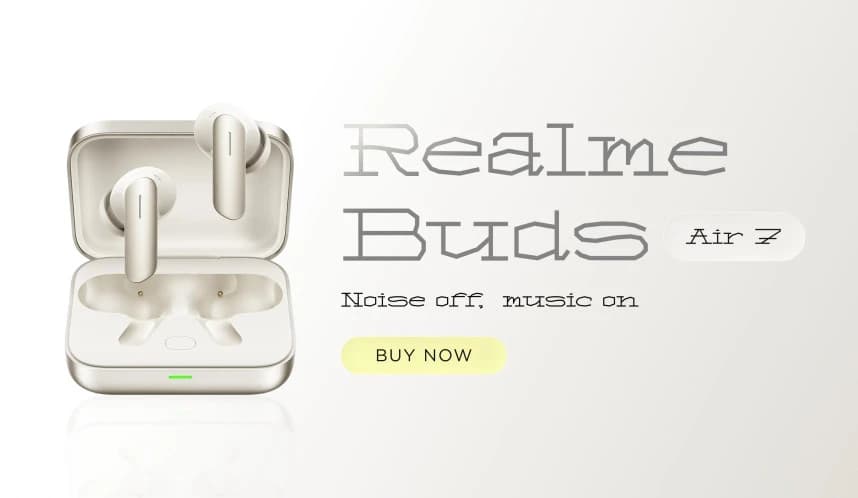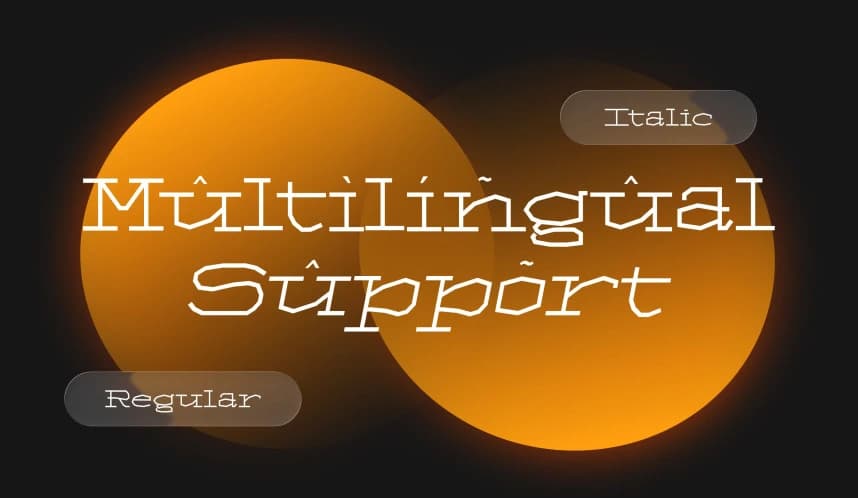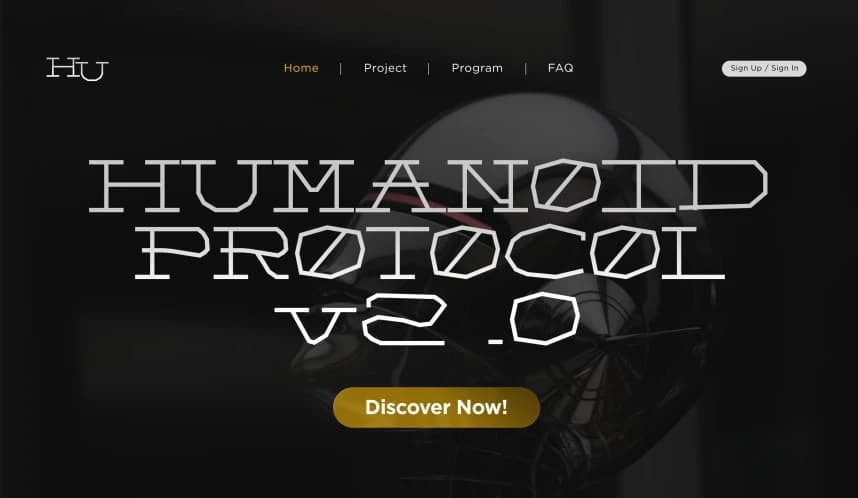
FT Monogrid Font
FT Monogrid Font is a high-performance display typeface designed for the modern era. Built upon a rigid, modular grid system, this font blends technical precision with a bold, futuristic edge. Its sharp terminals and balanced letterforms create a striking visual rhythm